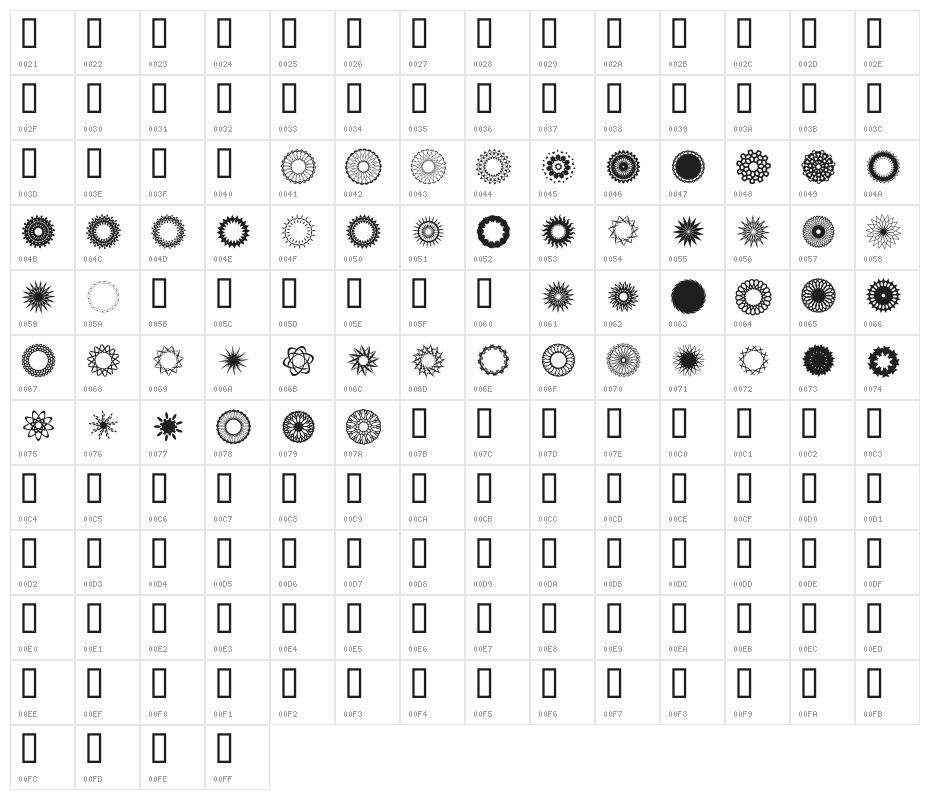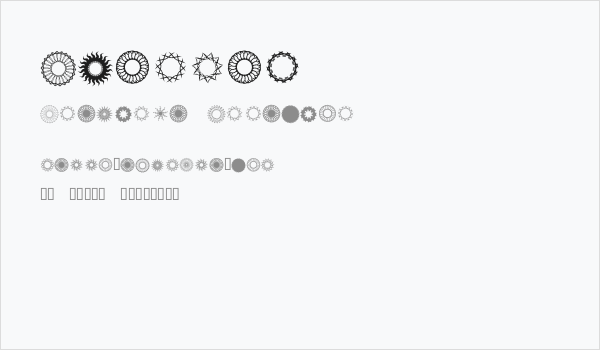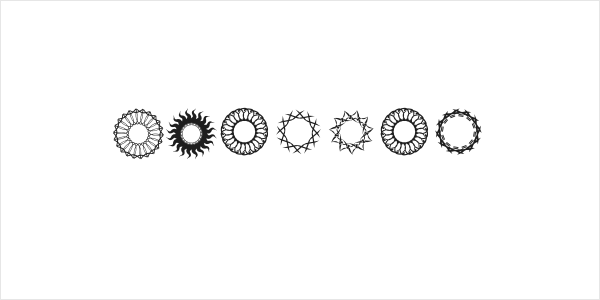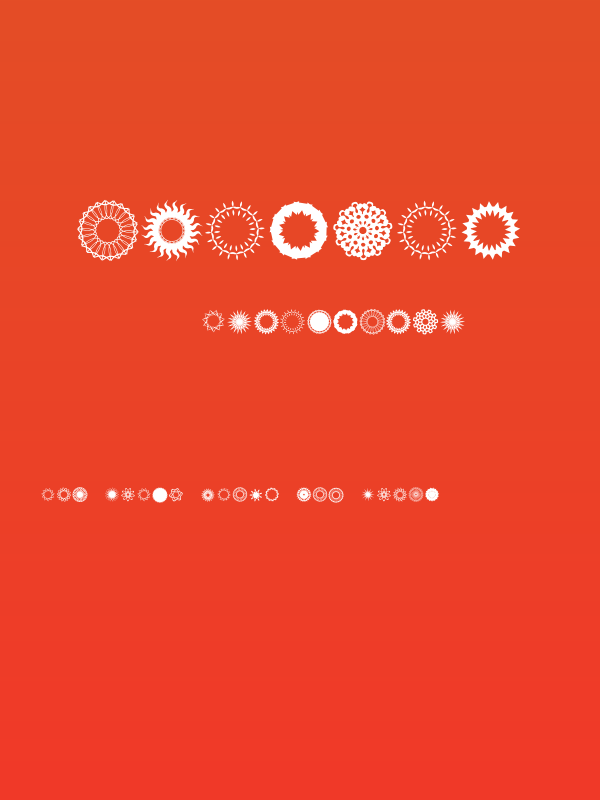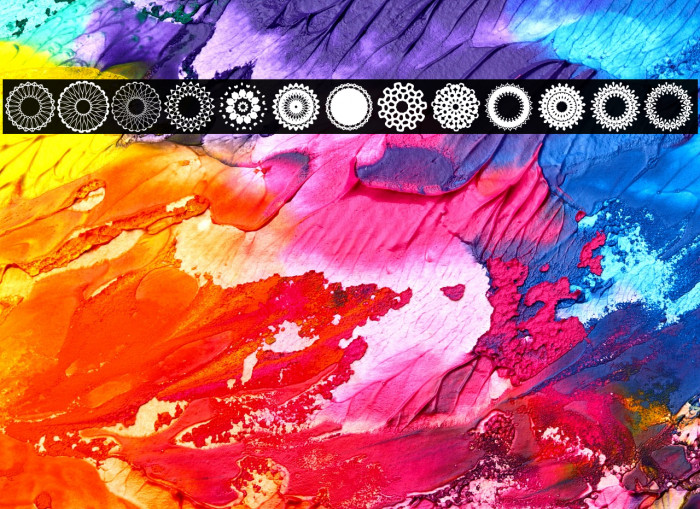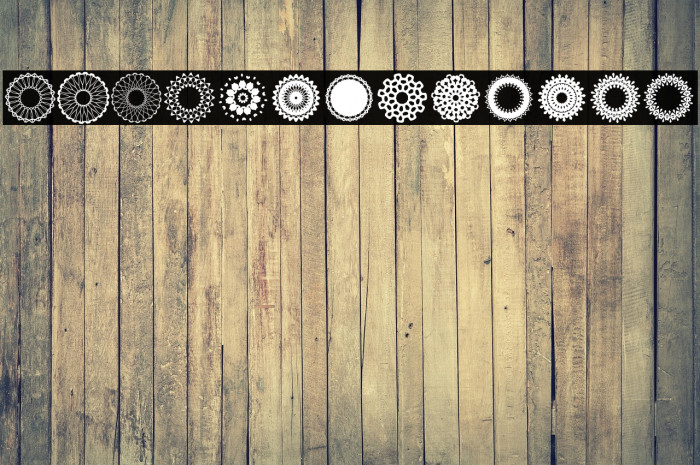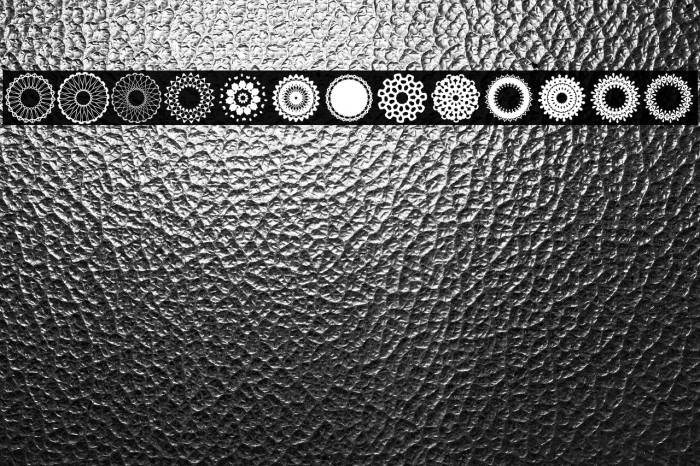
ASorion Font
ASorion Description
A decorative dingbat set featuring intricate circular and geometric spirograph-like patterns, along with bold rectangular frames. The designs vary in complexity, with some filled and others outlined, offering a range of ornamental motifs.
| Use Case | Borders, embellishments, graphic design elements. |
| Proposed Projects | Certificates, borders, digital art, decorative dividers, scrapbooking, invitations. |